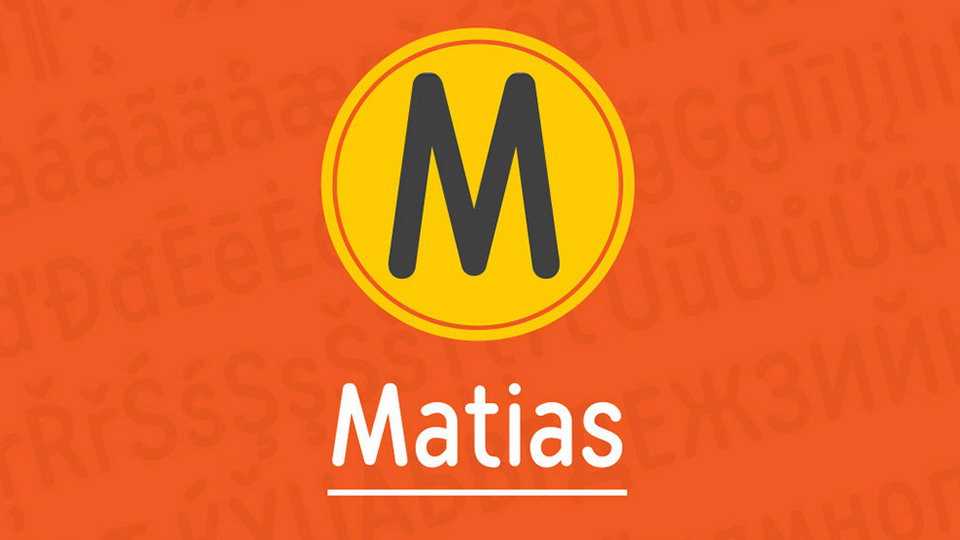
Download Matias font – a smoth and soft sans serif. It’s used in menu design, design of post pictures, promotions and presentations. Looks good in large size. It is not difficult to arrange a picture for a social network or make the title.
Designer: Vitaliy Tsygankov